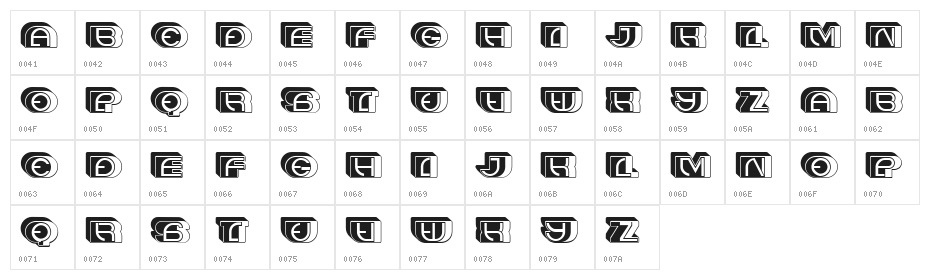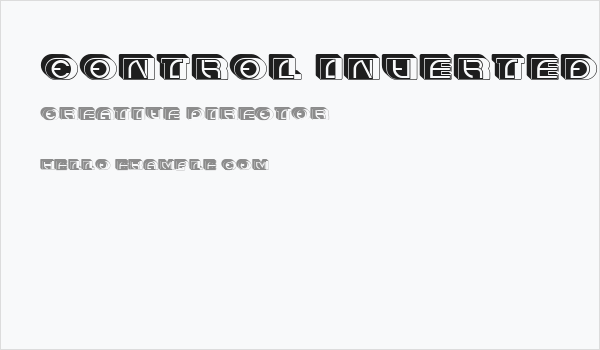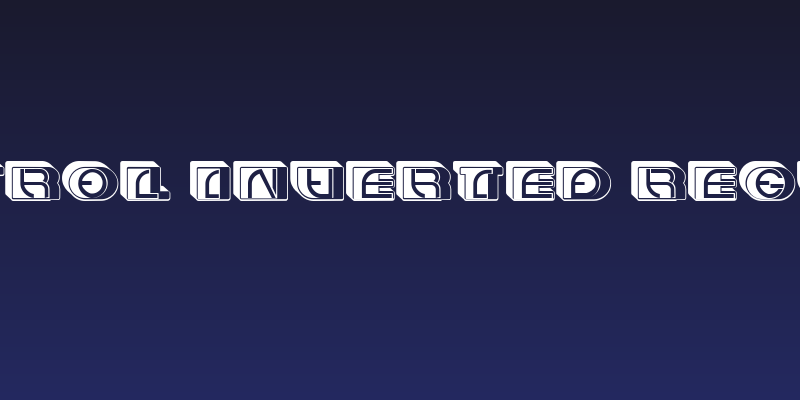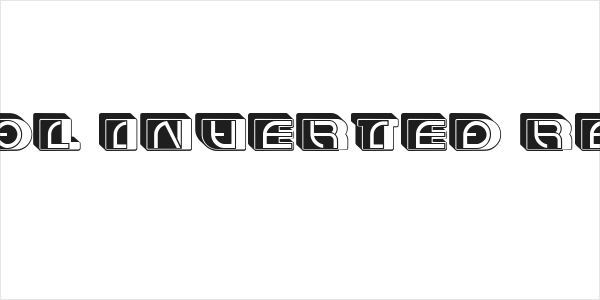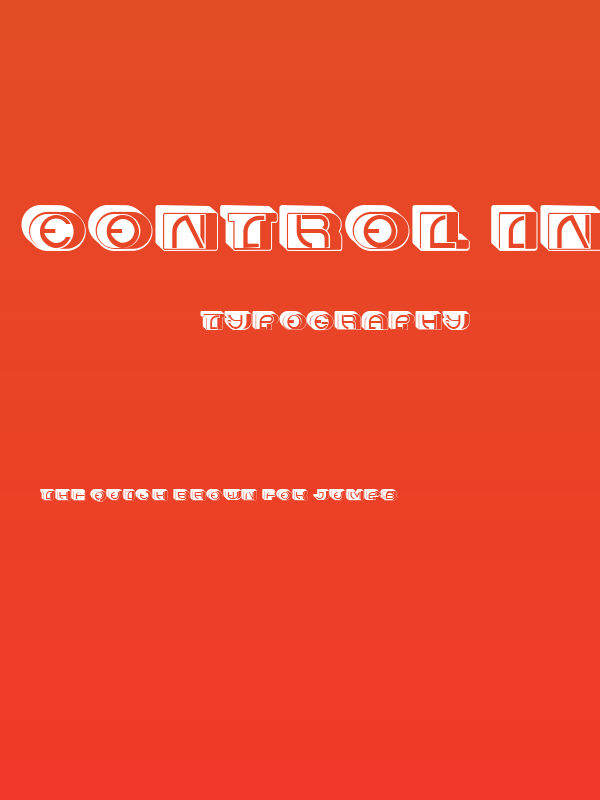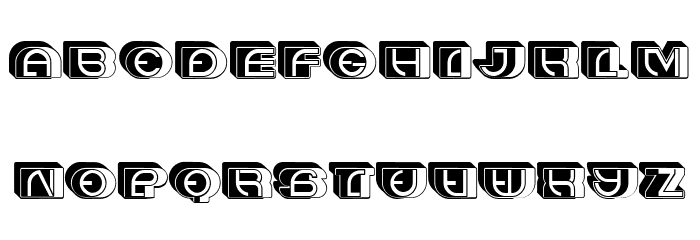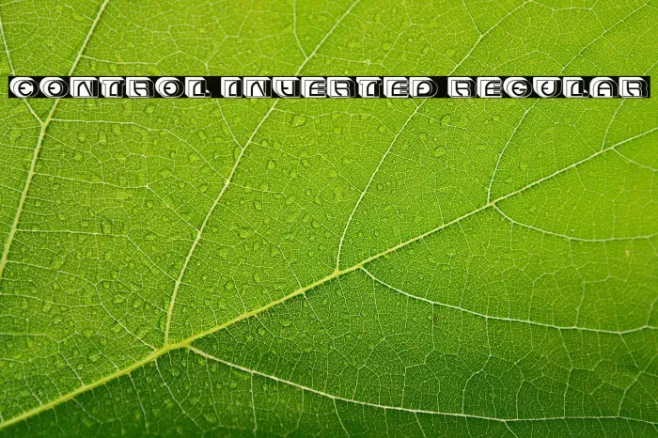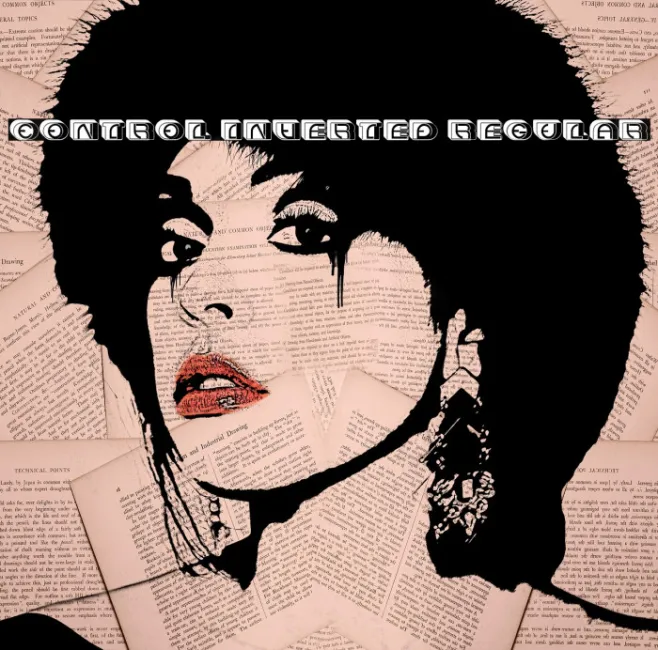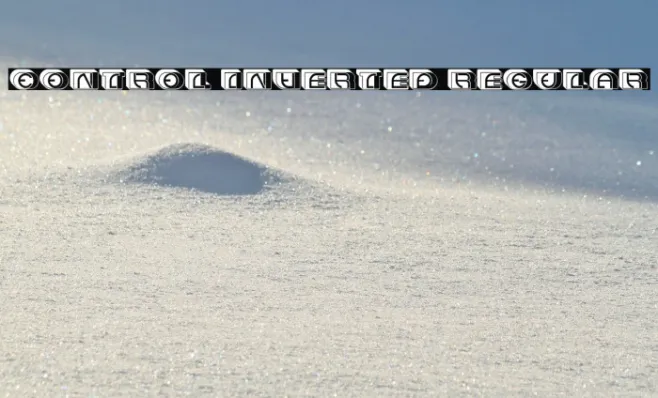
Control Inverted Regular Font
Control Inverted Regular Description
This font features a bold, three-dimensional style with a distinct shadow effect that gives it a striking, layered appearance. The characters are uppercase and have a geometric, block-like structure, making them stand out prominently. The design incorporates a modern twist with its inverted color scheme, where the interior of the letters is filled with a dark shade, contrasted by a lighter outline. This creates a dynamic visual impact, ideal for catching attention. The font's style is both contemporary and playful, suitable for creative and bold design projects.
| Proposed Projects | Ideal for eye-catching headlines, posters, branding, and any project requiring a bold, modern aesthetic. |